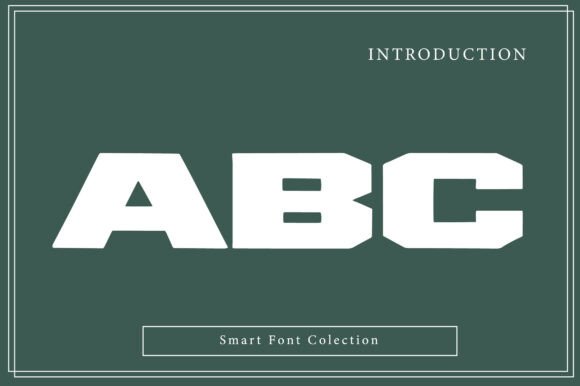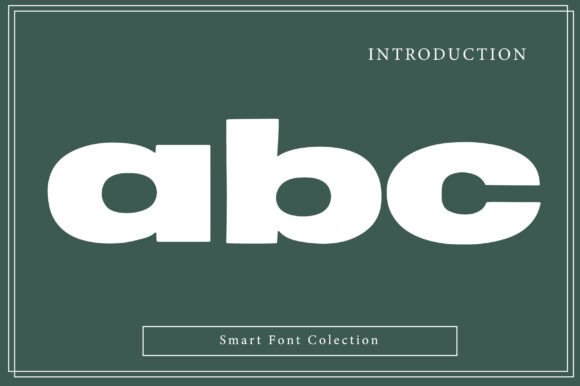
Introduction to Geo Blocker Font
You’ve been stuck on a creative project for hours, staring at your screen, desperately trying to find the perfect font to make your design pop. The blank space on your canvas is screaming for attention, and you’re about to give in to the temptation of using a generic font that just doesn’t cut it. But wait, have you considered the Geo Blocker Font?
This bold geometric display font is a game-changer for designers looking to add a touch of rugged, modern flair to their work. Its heavy block-style letterforms, subtle rounded cuts, and industrial shaping make it the perfect design resource for anyone seeking to make a statement. Whether you’re working on a gaming graphic, tech branding, or sports title, Geo Blocker Font’s clean edges and strong, wide proportions are sure to grab attention and leave a lasting impression.
And the best part? Geo Blocker Font is available for free download, allowing you to elevate your designs to the next level without breaking the bank. With its high-quality design and transparent background, this font is a must-have for any designer looking to add a touch of sophistication and authority to their work.
Key Features of Geo Blocker Font
- Unique, high-quality design suitable for creative projects and digital designs, offering a modern aesthetic.
- Geo Blocker Font comes with a transparent background, allowing for seamless integration with various design elements.
- Perfect as a design resource for designers, artists, and content creators, ideal for use in logos, branding, and digital art.
- High-resolution font, designed to maintain its quality at various resolutions, including 72 dpi and 300 dpi.
- Geo Blocker Font is available in a single weight, making it easy to use and integrate into various design projects.
Honest Review: Geo Blocker Font
I recently came across the Geo Blocker Font, a design resource that caught my attention with its unique aesthetic. As a designer, I appreciate high-quality fonts that can elevate my creative projects.
What works well with the Geo Blocker Font is its versatility. It’s perfect for designs that require a touch of modernity and edginess. The font’s geometric shapes and clean lines make it an excellent choice for logos, headings, and even body text. I particularly enjoy using it for designs with a transparent background, as it really makes the font pop.
Some of the key features I like about the Geo Blocker Font include:
- ✨ Unique geometric shapes that add an edge to designs
- ✨ Clean lines and modern aesthetic
However, I do have some reservations about the font’s limitations. It may not be suitable for designs that require a more traditional or classic look. Additionally, some users may find the font’s boldness overwhelming.
Overall, I’m impressed with the Geo Blocker Font. Its unique design and high quality make it a valuable addition to any designer’s toolkit. While it may not be perfect for every project, it’s definitely worth checking out for designers looking to add some modern flair to their work.
Tips for Getting the Most Out of Geo Blocker Font
For the best results, use the Geo Blocker Font on a transparent background to create a clean and modern design. Experiment with different font sizes and styles to add visual interest to your project.
The Geo Blocker Font is perfect for a variety of creative projects, including: